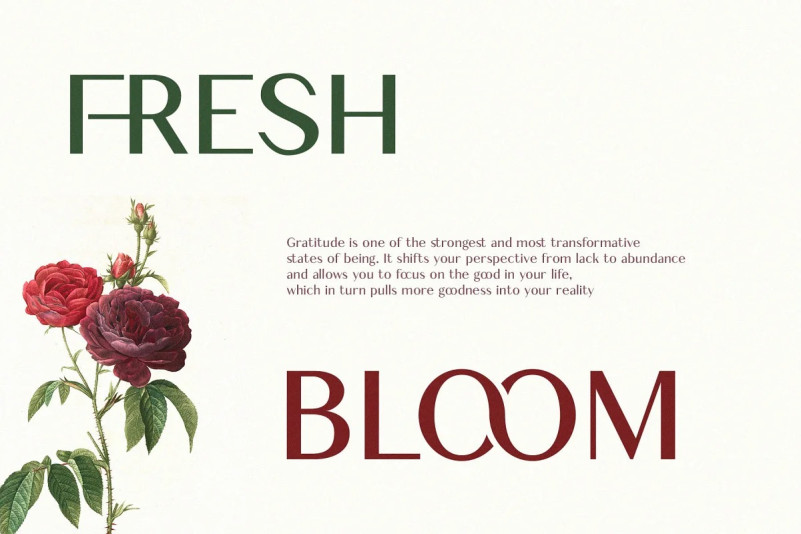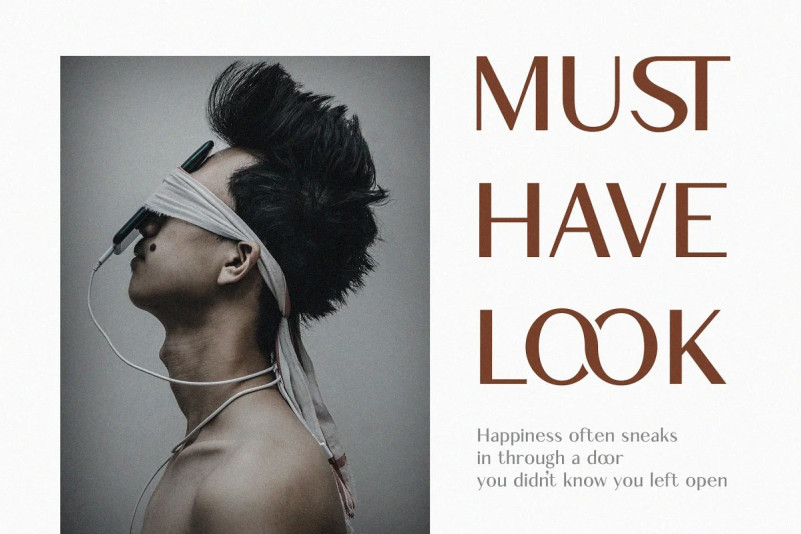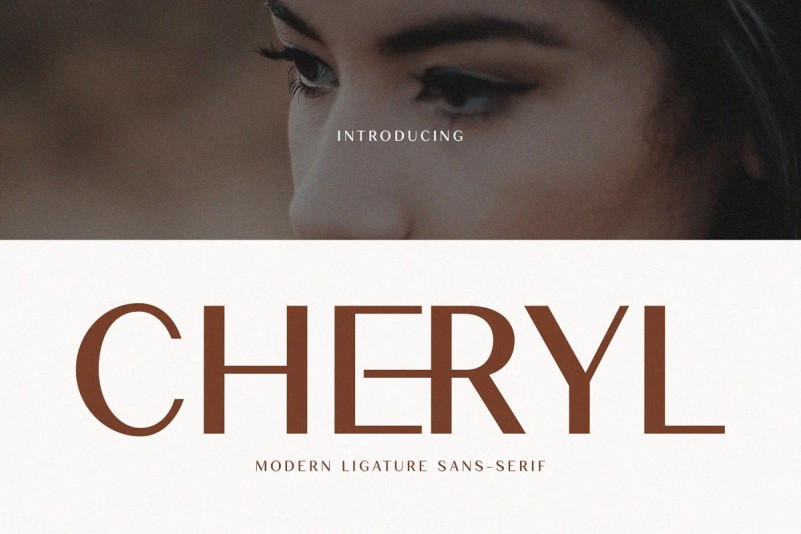
Cheryl Font
Cheryl Font is a classy, modern sans font. This font is modern and elegant and works great for logos, magazines, social media. This font it’s matched and ready to be used together for your next design! For those of you who need a touch of elegance, stylish, classy, chic and modernity for your designs, this font is made for you!
Cheryl is built with OpenType features and includes ligatures,numbers, punctuation, and also supports other languages.